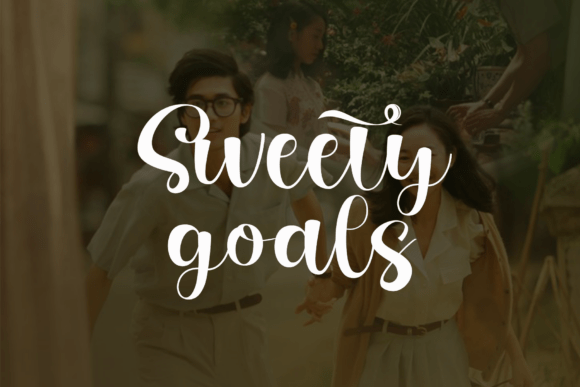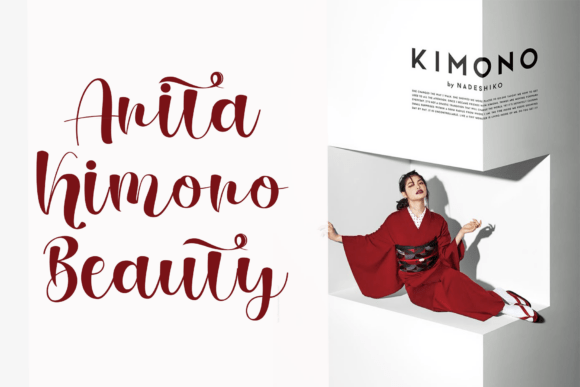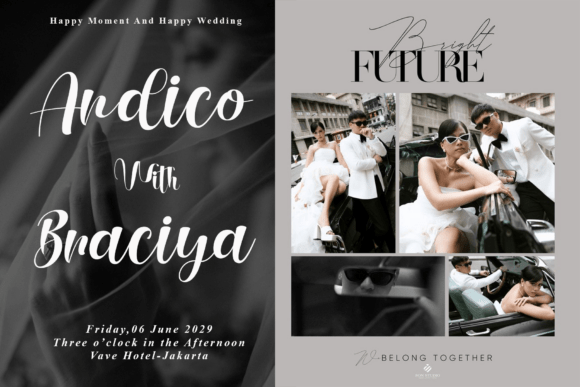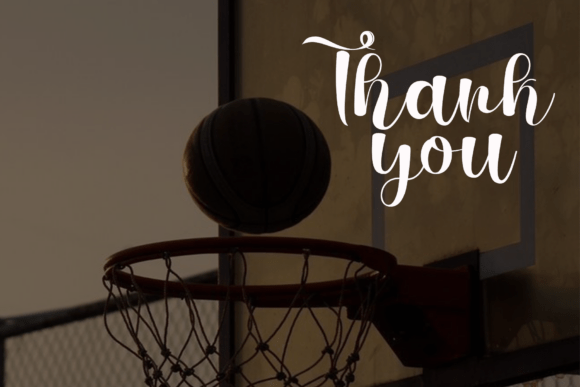
Benevite Font: Elevate Your Designs with a Timeless Handwritten Style
Are you on the hunt for a font that adds a personal touch to your designs? Look no further than Benevite, a lovely and timeless handwritten font that’s perfect for creating eye-catching logos, branding, and quotes. With its unique and beautiful touch, Benevite is sure to make your design come alive!
Handwritten fonts have a way of adding a touch of warmth and personality to any design. They’re perfect for creating a sense of nostalgia or whimsy, and can be used to evoke a range of emotions. Benevite is no exception, with its elegant and flowing script that’s sure to capture the attention of your audience.
What Makes Benevite Special?
So, what sets Benevite apart from other handwritten fonts? For starters, every letter has a unique and beautiful touch that’s been carefully crafted to create a sense of movement and fluidity. This means that your designs will have a level of personality and charm that’s hard to replicate with more traditional fonts.
Another advantage of Benevite is its versatility. Whether you’re creating a logo, branding materials, or social media graphics, this font is sure to shine. Its timeless style means that it won’t go out of fashion anytime soon, making it a great investment for designers and crafters who want to create designs that will stand the test of time.
Benevite is a dream come true for designers and crafters who want to add a personal touch to their work. Whether you’re creating:
- Eye-catching logos that showcase your brand’s personality
- Branding materials that reflect your unique style
- Quotes and social media graphics that inspire and engage
Benevite is the perfect choice. Its elegant and flowing script is sure to add a level of sophistication and whimsy to your designs, making them stand out from the crowd.
Tips for Using Benevite
To get the most out of Benevite, here are a few tips to keep in mind:
- Use it sparingly: While Benevite is a beautiful font, it can be overwhelming if used too much. Try using it as a headline or accent font to add a pop of personality to your design.
- Experiment with colors: Benevite looks great in a range of colors, from bold and bright to soft and pastel. Experiment with different colors to find the perfect fit for your design.
- Pair it with other fonts: Benevite pairs well with a range of other fonts, from sans-serif to serif. Try pairing it with a contrasting font to create visual interest and add depth to your design.
In conclusion, Benevite is a timeless handwritten font that’s perfect for designers and crafters who want to add a personal touch to their work. With its unique and beautiful touch, Benevite is sure to make your designs come alive. Whether you’re creating logos, branding materials, or social media graphics, Benevite is a great choice. So why wait? Give Benevite a try today and see the difference it can make!
- Lovely and timeless handwritten font
- Unique and beautiful touch
- Perfect for creating eye-catching logos, branding, and quotes
- Versatile and elegant script
- Great for designers and crafters who want to add a personal touch to their work